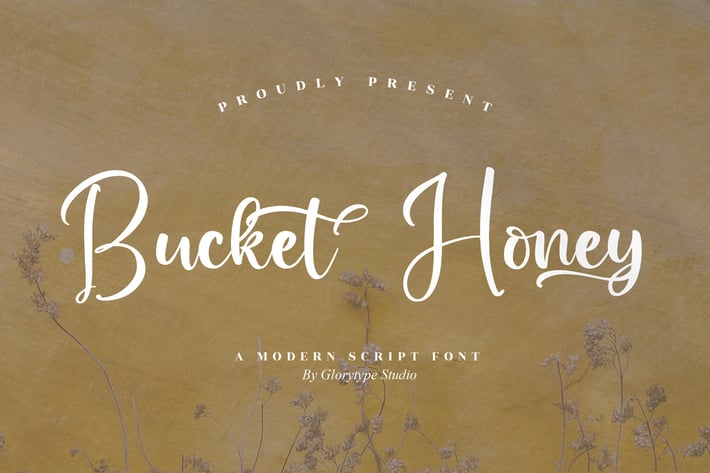
Bucket Honey Modern Script Font
Bucket Honey is a modern handwritten script font designed with soft curves and a naturally flowing stroke. Its warm, charming character brings a handwritten elegance that feels both personal and stylish — perfect for projects that want a gentle, expressive, and premium script aesthetic.
Modern handwritten script style
Smooth curves with natural letterflow
Warm and expressive handwritten character
Logo signatures & personal branding
Wedding invitations & soft stationery
Social media quotes and aesthetic posts
Feminine branding & lifestyle products
Packaging designs with a handwritten touch
Photography watermark signatures
Greeting cards and elegant printables
Minimal, soft, and modern creative projects
Warm, flowing, and naturally expressive — Bucket Honey adds a heartfelt handwritten touch to every design.*